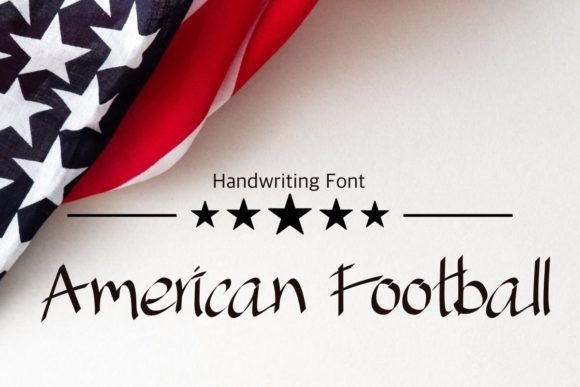
American Football Font: The Perfect Addition to Your Creative Projects
Are you looking for a font that can add a touch of excitement and energy to your creative projects? Look no further than the American Football font. This neat and fun handwritten font is perfect for a wide range of designs, from sports-themed projects to playful and creative endeavors. In this article, we’ll take a closer look at the American Football font, its features, and how you can use it to bring your ideas to life.
Clean and Clear Characters
One of the standout features of the American Football font is its clean and clear characters. The font is designed to be easy to read and understand, making it perfect for use in a variety of contexts. Whether you’re creating a sports-themed poster, a fun and playful t-shirt design, or a professional-looking brochure, the American Football font is a great choice.
The clean and clear characters of the font make it highly versatile, allowing it to match a wide pool of designs. The font is also highly legible, even at small sizes, making it perfect for use in body text or captions.
A Neat and Fun Handwritten Font
The American Football font is a handwritten font, which gives it a unique and personal touch. The font has a friendly and approachable feel, making it perfect for use in designs where you want to create a sense of warmth and approachability.
The handwritten nature of the font also gives it a high level of character and personality. Each letter and number has its own unique quirks and charm, making the font feel highly authentic and genuine.
Bring Your Ideas to Life with American Football Font
The American Football font is a highly versatile font that can be used in a wide range of creative projects. Here are a few ideas to get you started:
- Sports-themed designs: The American Football font is perfect for use in sports-themed designs, such as posters, t-shirts, and brochures.
- Playful and creative designs: The font’s playful and fun nature makes it perfect for use in designs where you want to create a sense of excitement and energy.
- Branding and marketing materials: The font’s clean and clear characters make it a great choice for use in branding and marketing materials, such as logos, business cards, and letterheads.
Tips and Tricks for Using American Football Font
Here are a few tips and tricks to help you get the most out of the American Football font:
- Use it in combination with other fonts: The American Football font pairs well with a wide range of other fonts, so don’t be afraid to experiment with different combinations.
- Experiment with different colors: The font looks great in a wide range of colors, so don’t be afraid to try out different options.
- Use it to add a personal touch: The handwritten nature of the font makes it perfect for use in designs where you want to add a personal touch.
American Football Font Specifications
Here are the specifications for the American Football font:
- Font family: American Football
- Font style: Handwritten
- Font weight: Regular
- Font size: Available in a range of sizes
- Character set: Includes a wide range of characters, including letters, numbers, and punctuation marks
In conclusion, the American Football font is a highly versatile and fun font that can add a touch of excitement and energy to your creative projects. Its clean and clear characters, handwritten nature, and high level of legibility make it perfect for use in a wide range of designs. So why not give it a try and see how it can bring your ideas to life?